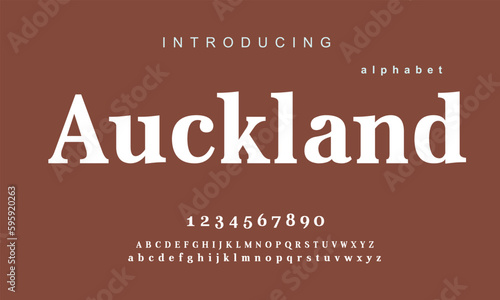
Auchland Font. Elegant alphabet letters font and number. Classic Lettering Minimal Fashion Designs. Typography modern serif fonts regular uppercase lowercase and numbers. vector illustration